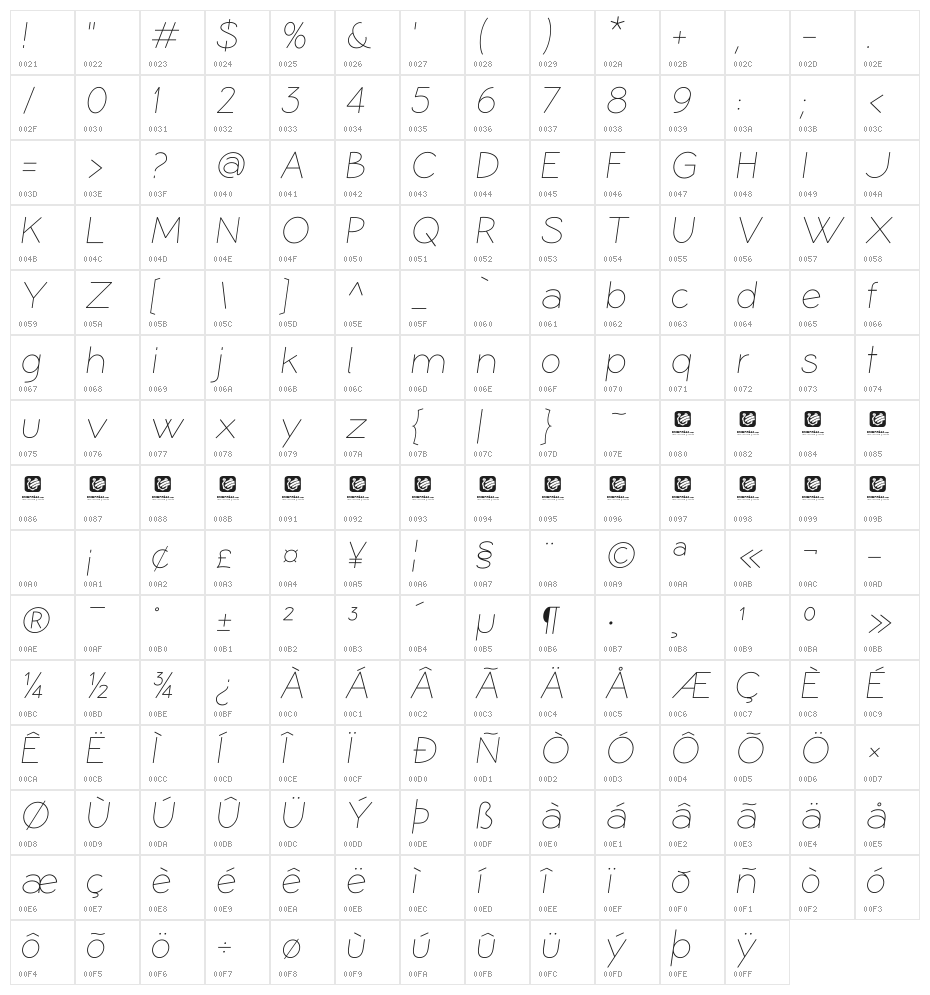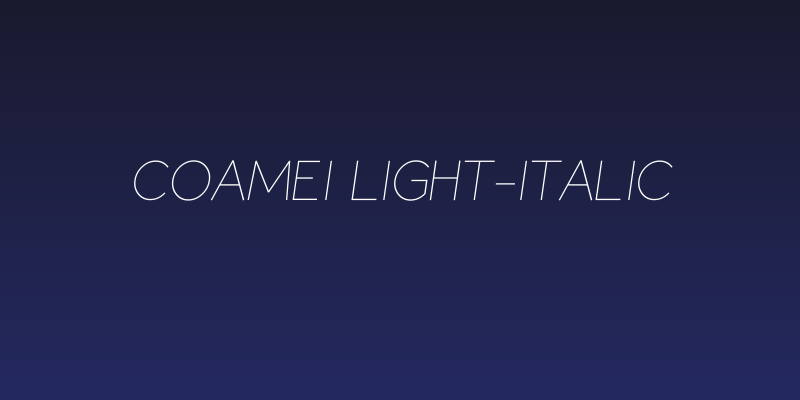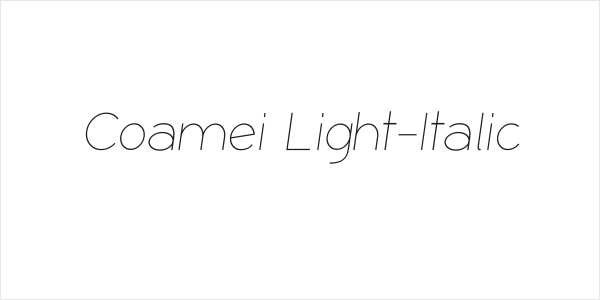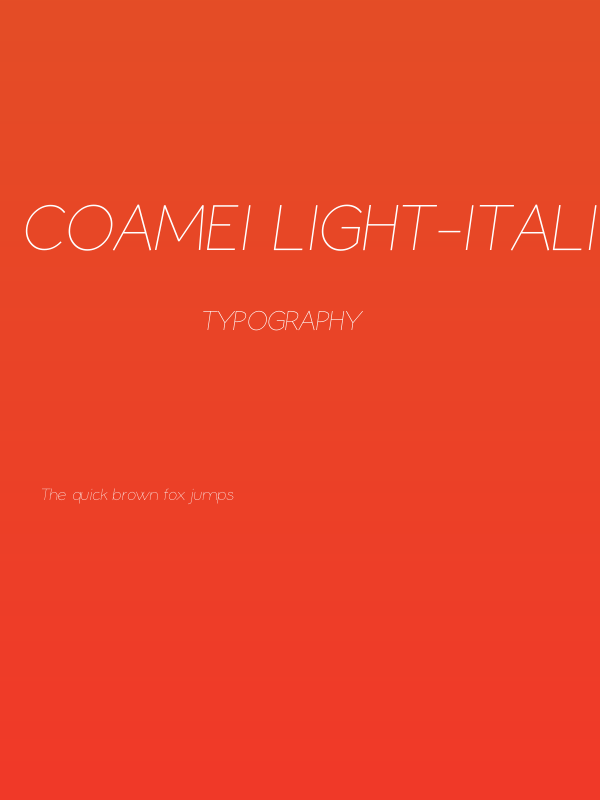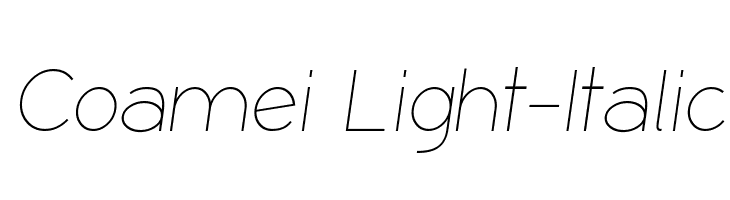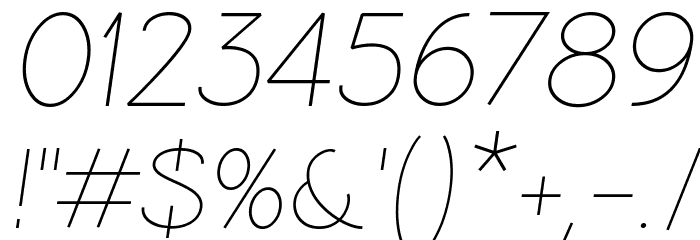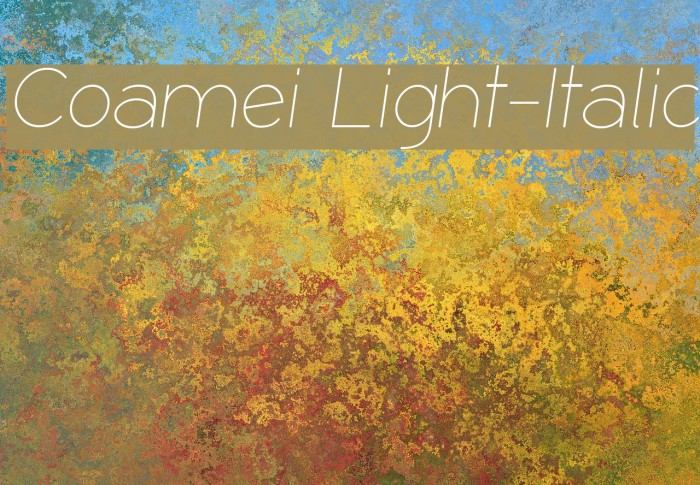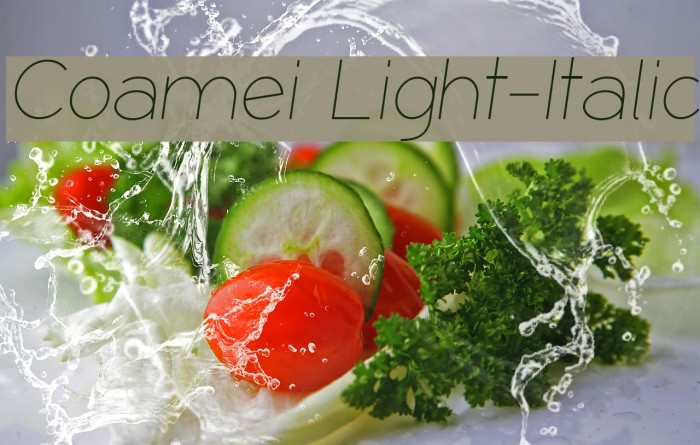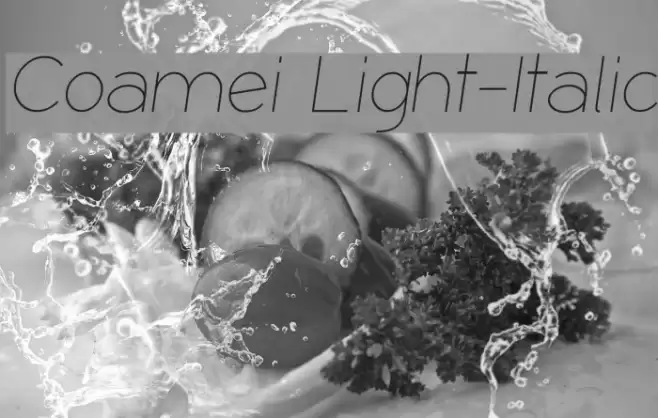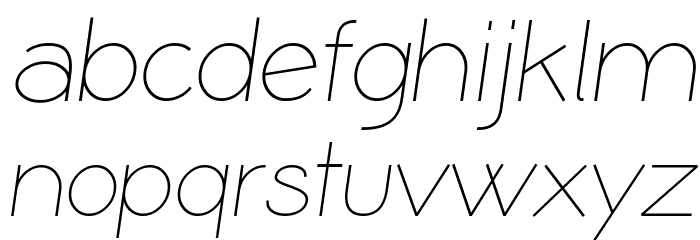
Coamei Light-Italic Font
Coamei Light-Italic Description
This font presents a sleek and modern aesthetic, characterized by its light and airy strokes. The italic style adds a dynamic and elegant touch, making it suitable for contemporary design projects. The characters are well-spaced, ensuring readability while maintaining a stylish appearance. The uppercase and lowercase letters are consistent in style, with smooth curves and clean lines. The numerals and special characters are designed to complement the overall look, providing a cohesive and versatile typeface.
| Use Case | Headlines, Body text, Logos |
| Proposed Projects | Ideal for branding, fashion magazines, modern websites, and elegant invitations. |